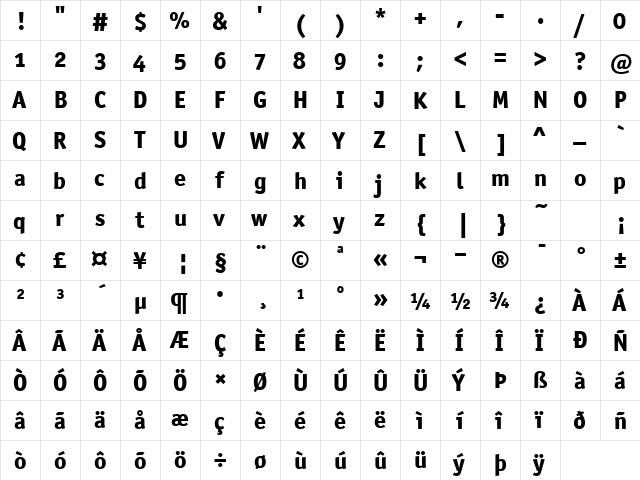
OfficinaSanOSITCTT ExtraBold Font Preview
OfficinaSanOSITCTT ExtraBold
OfficinaSanOSITCTT ExtraBold Font Details
| Style | ExtraBold |
| Foundry | International Typeface Corporation |
| Designer | Erik Spiekermann/Ole Schaefer |
Design Context for OfficinaSanOSITCTT Typeface
OfficinaSanOSITCTT offers clean, dependable letterforms without strong stylistic allegiance, making it a practical choice for designers who need flexibility. The heavy weight commands attention and anchors typographic hierarchies.